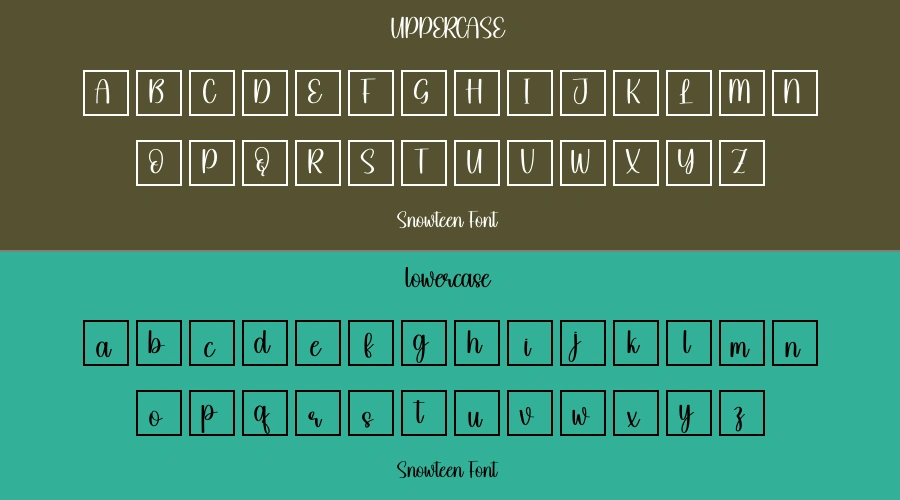
About Snowteen Font
Snowteen Font embodies typographic excellence through its masterful combination of elegant spacing and typographic color. Created for social media content, this typeface delivers exceptional sophistication and market appeal across all applications. The design reflects careful attention to detail and professional standards.
Advanced capabilities include distinctive contextual forms and versatile subscript/superscript, giving designers creative control. When used in body text, Snowteen Font exhibits remarkable large format impact. The harmonious balance between loop structure and cultural relevance sets this typeface apart.